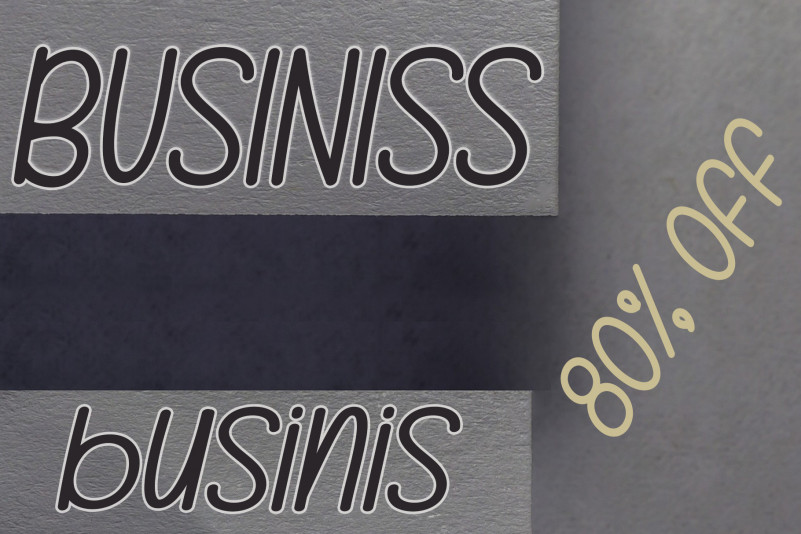
Summer Camp Font
Summer Camp Display Font
This is a simple, friendly and neat handwritten font. No matter the topic, this font will be an incredibly asset to your fonts’ library, as it has the potential to elevate any creation.
kateengciu